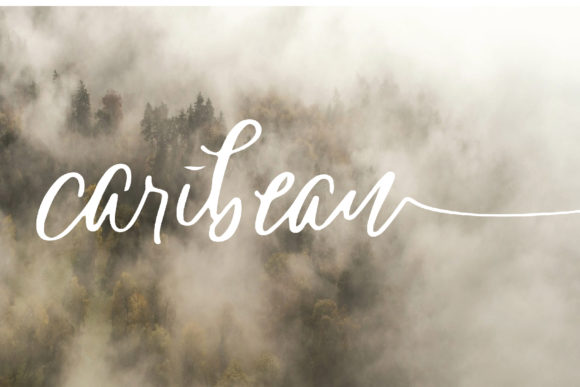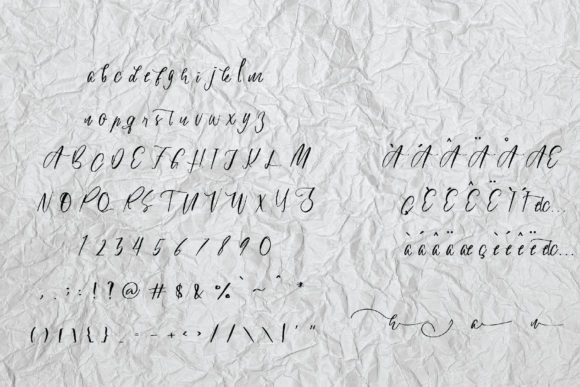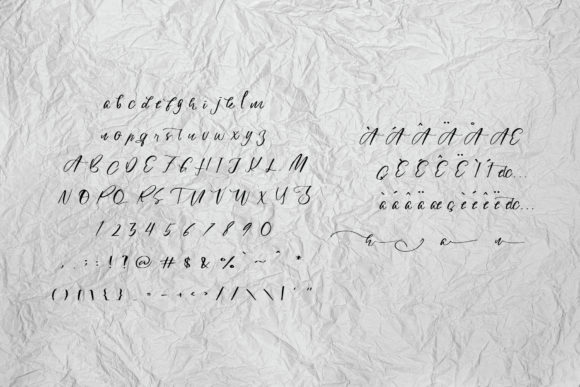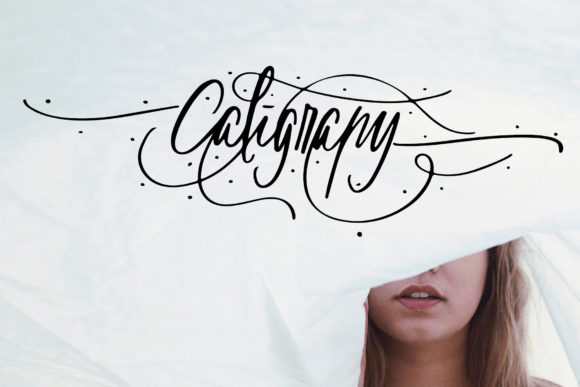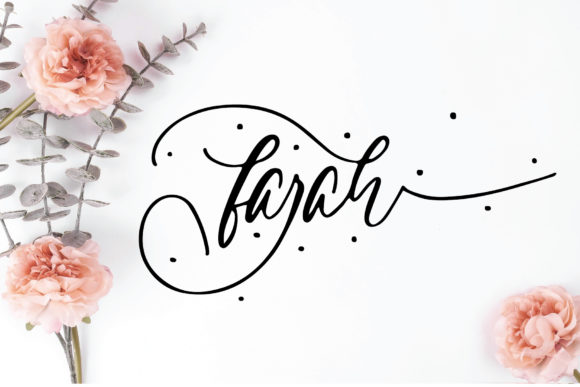
Caribean Font
About Caribean Font
Caribean is a gorgeous script that feels authentic and raw. Use it to add a romantic touch to your next creative project.